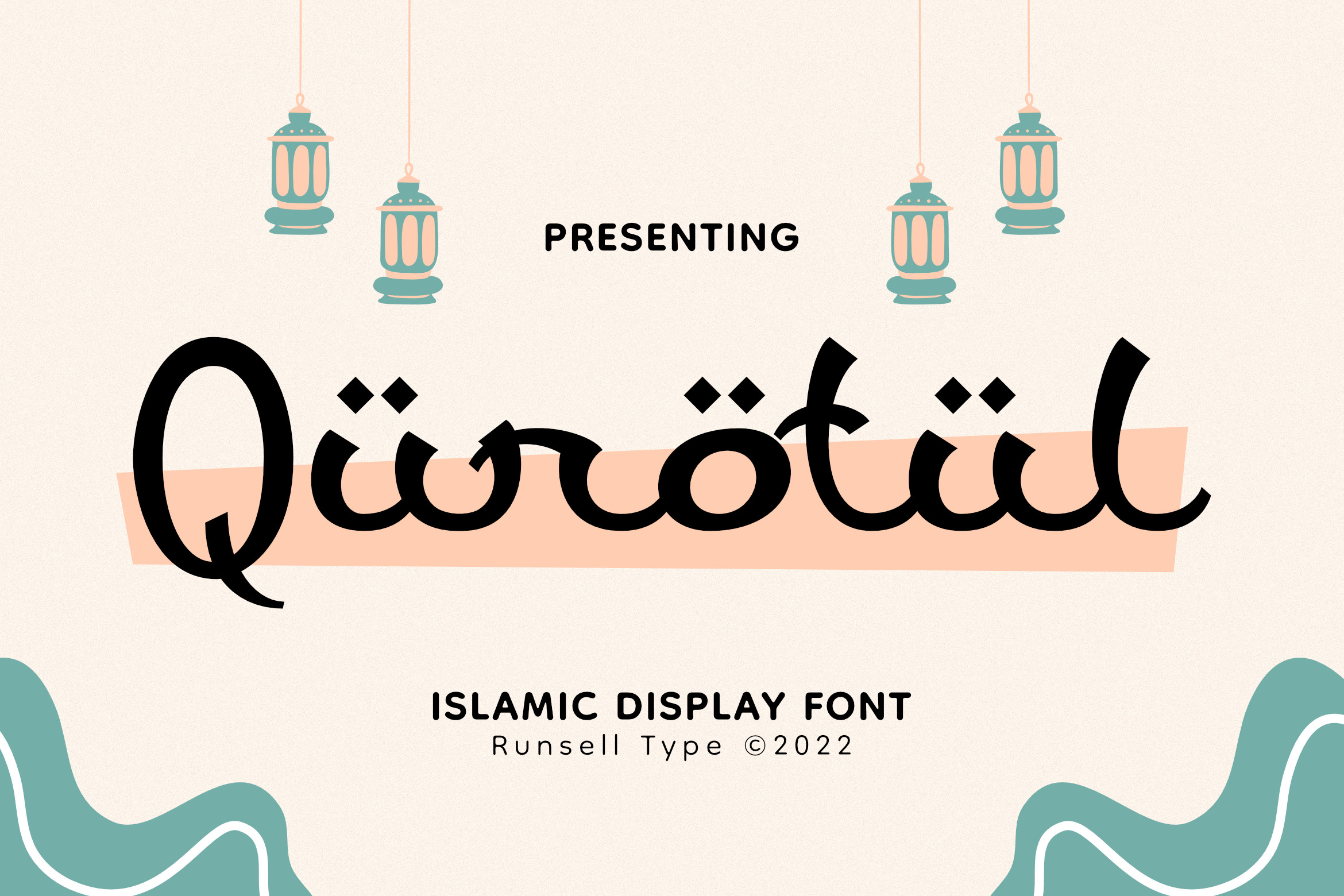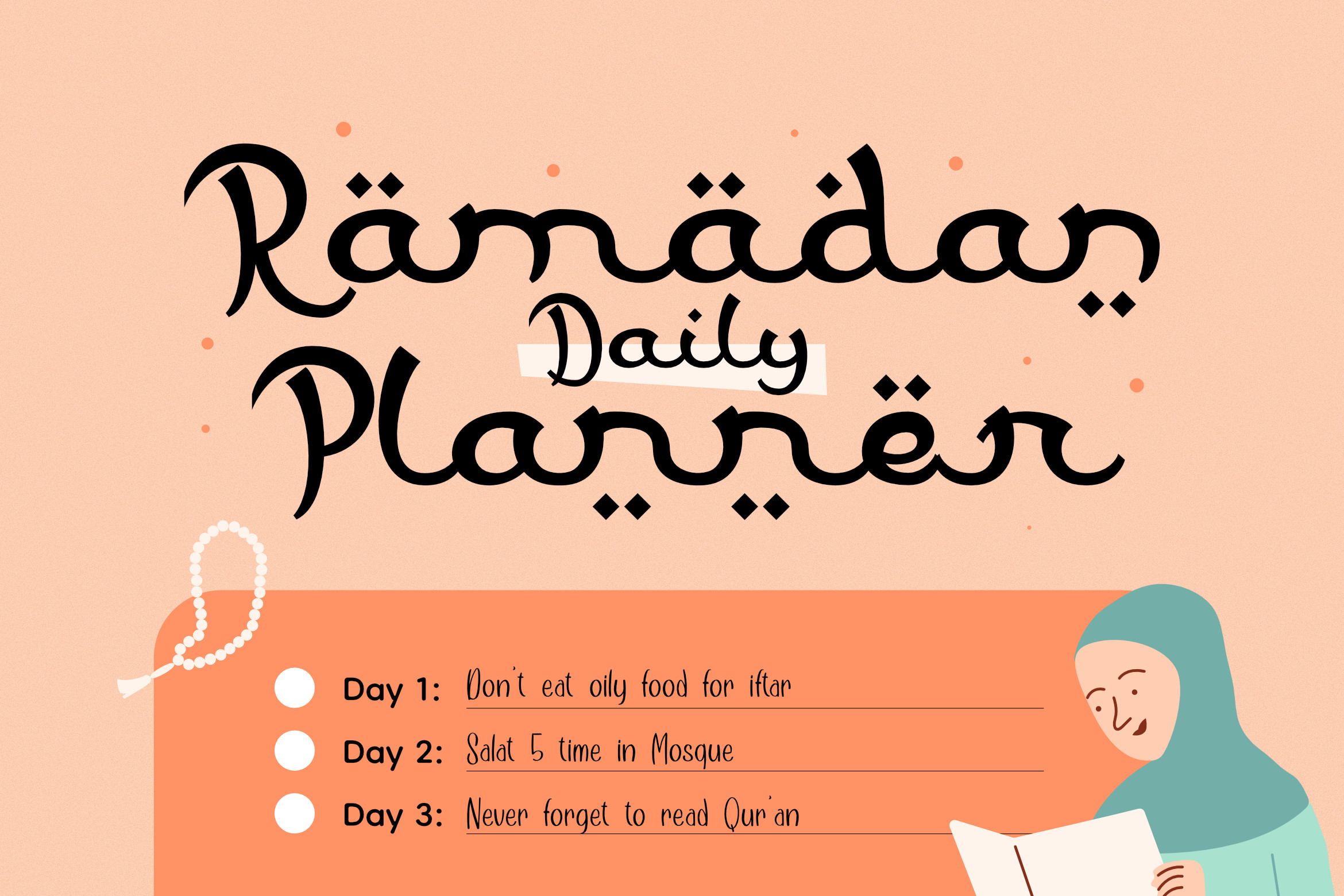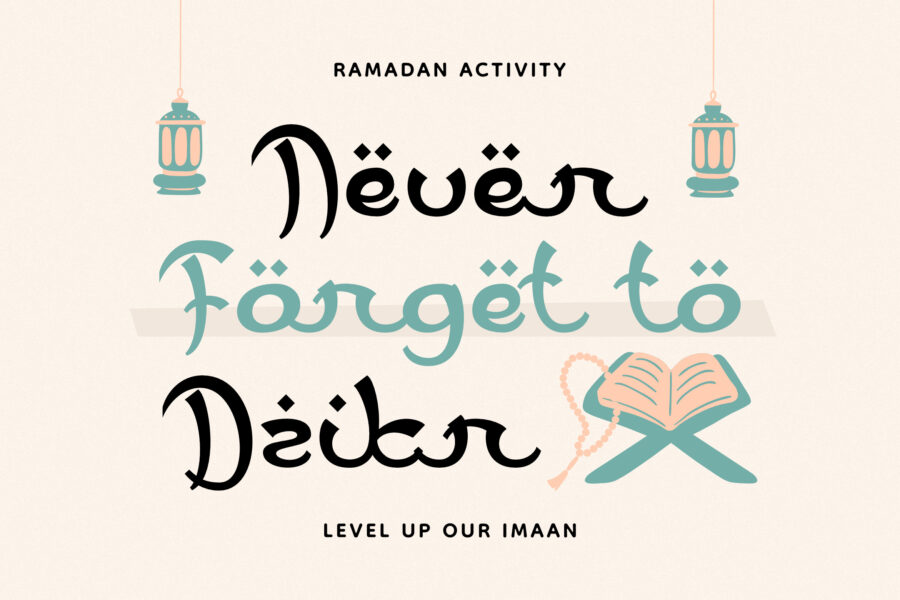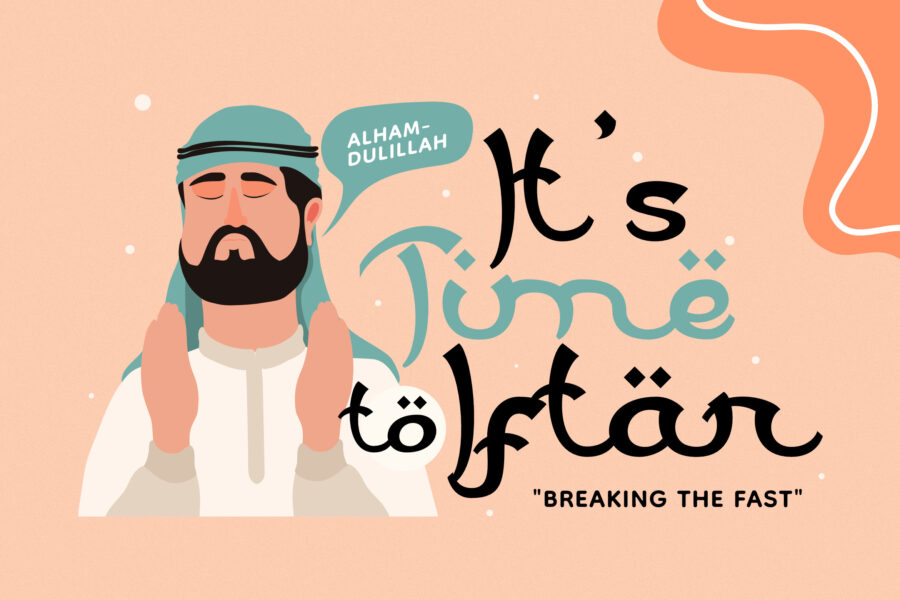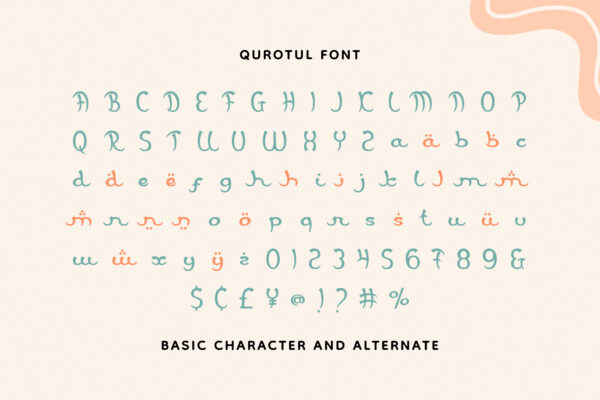
Qurotul is a charming and playful Islamic display font that blends Arabic ornamental touches with a modern handwritten style. Its rounded terminals, unique ligatures, and decorative diacritics evoke a warm, youthful energy—perfect for Ramadan-themed designs, children’s Islamic books, social media posts, and educational graphics. Qurotul stands out with its whimsical personality while maintaining legibility, making it ideal for storytelling and spiritual messages with a friendly tone.
This font includes a complete set of uppercase, lowercase, numerals, punctuation, and stylistic alternates that reflect the beauty of Arabic calligraphy in Latin form. Its flowing strokes and curved letterforms provide a soft, rhythmic aesthetic that works beautifully in posters, packaging, greeting cards, and digital content. Qurotul captures the spirit of Islamic celebration with a modern, approachable twist.
Qurotul